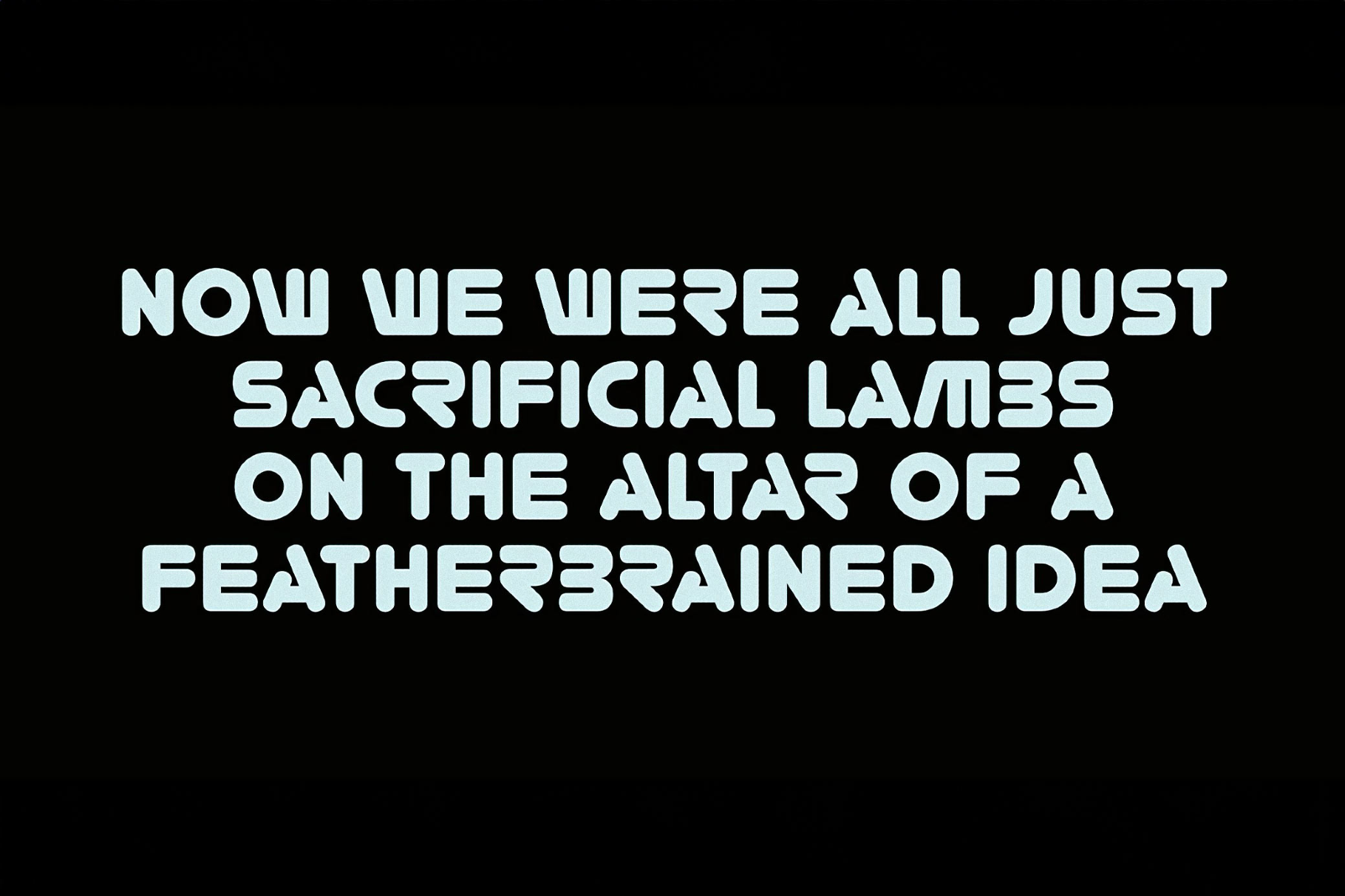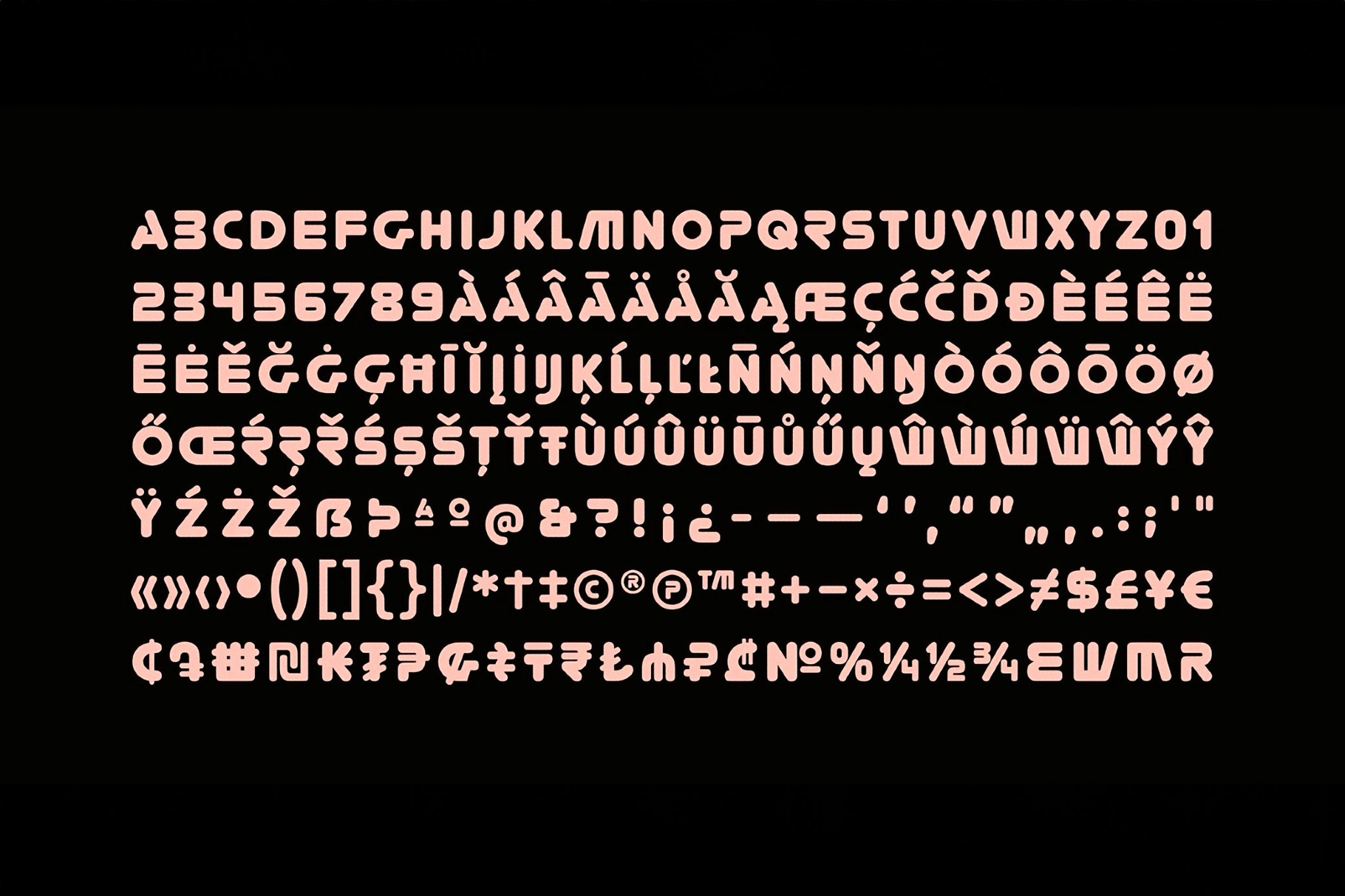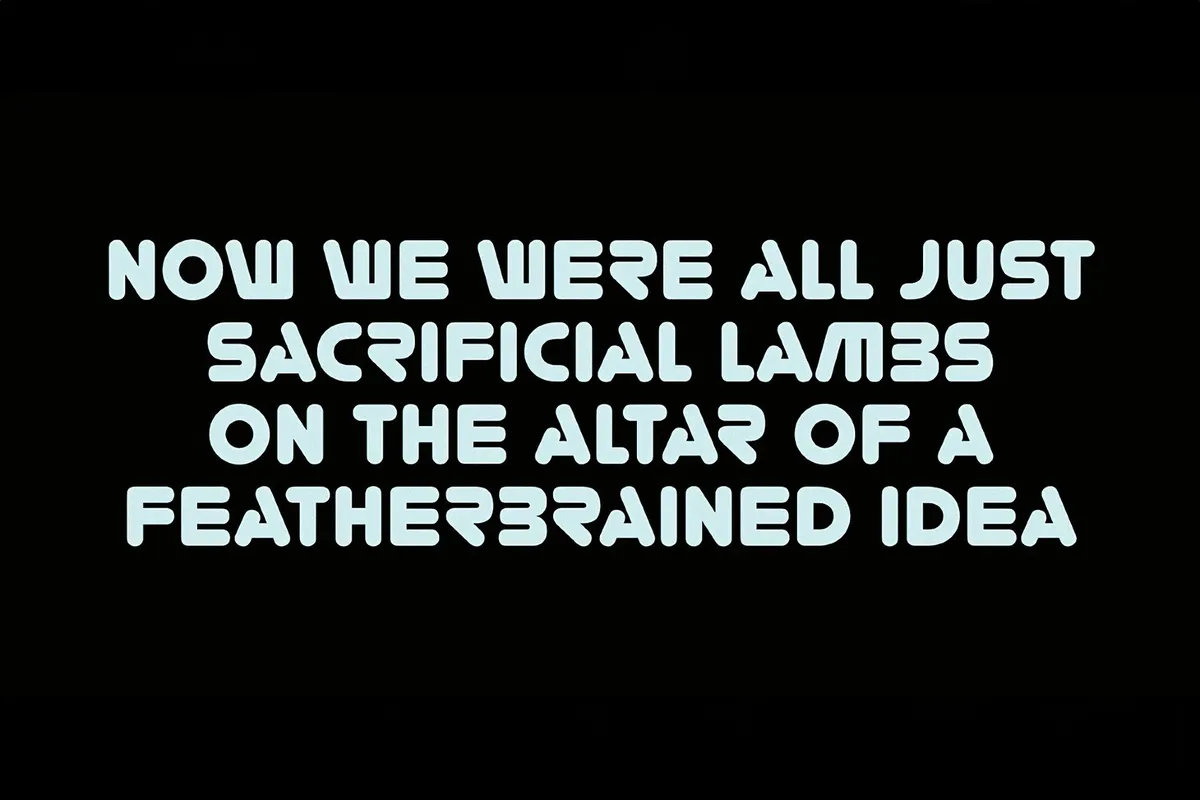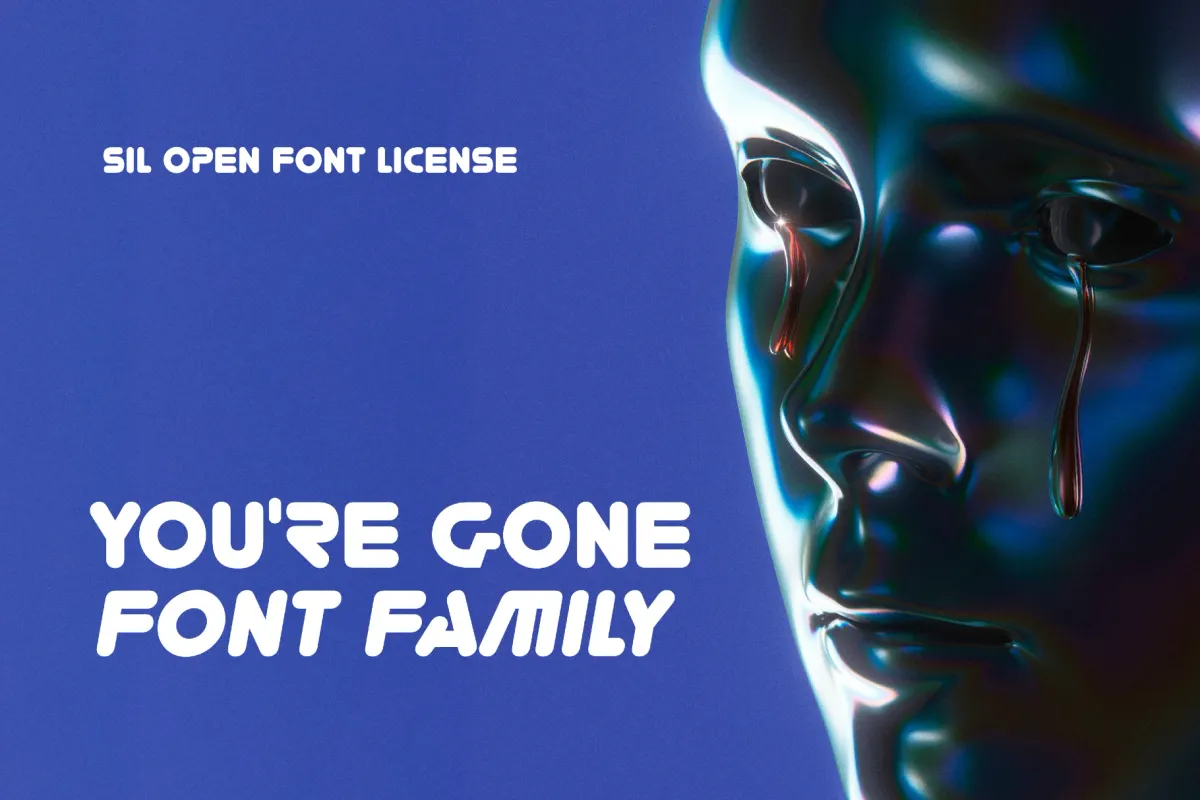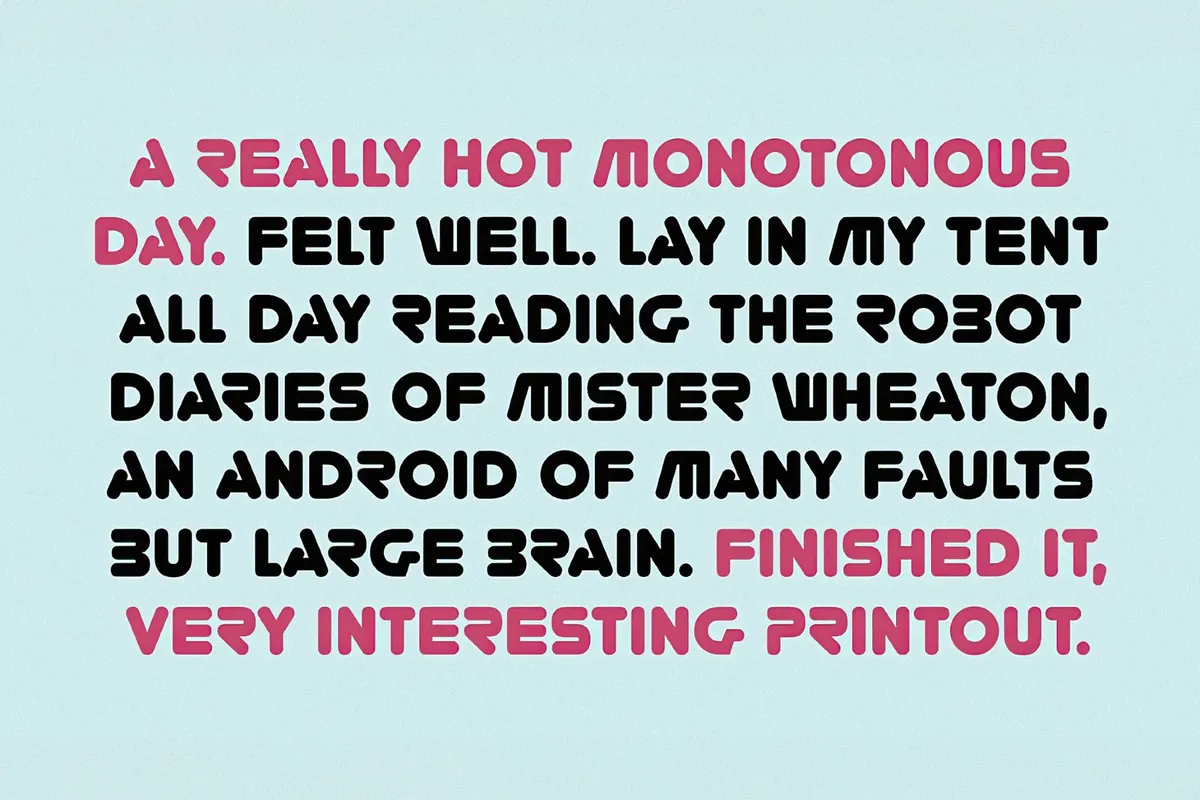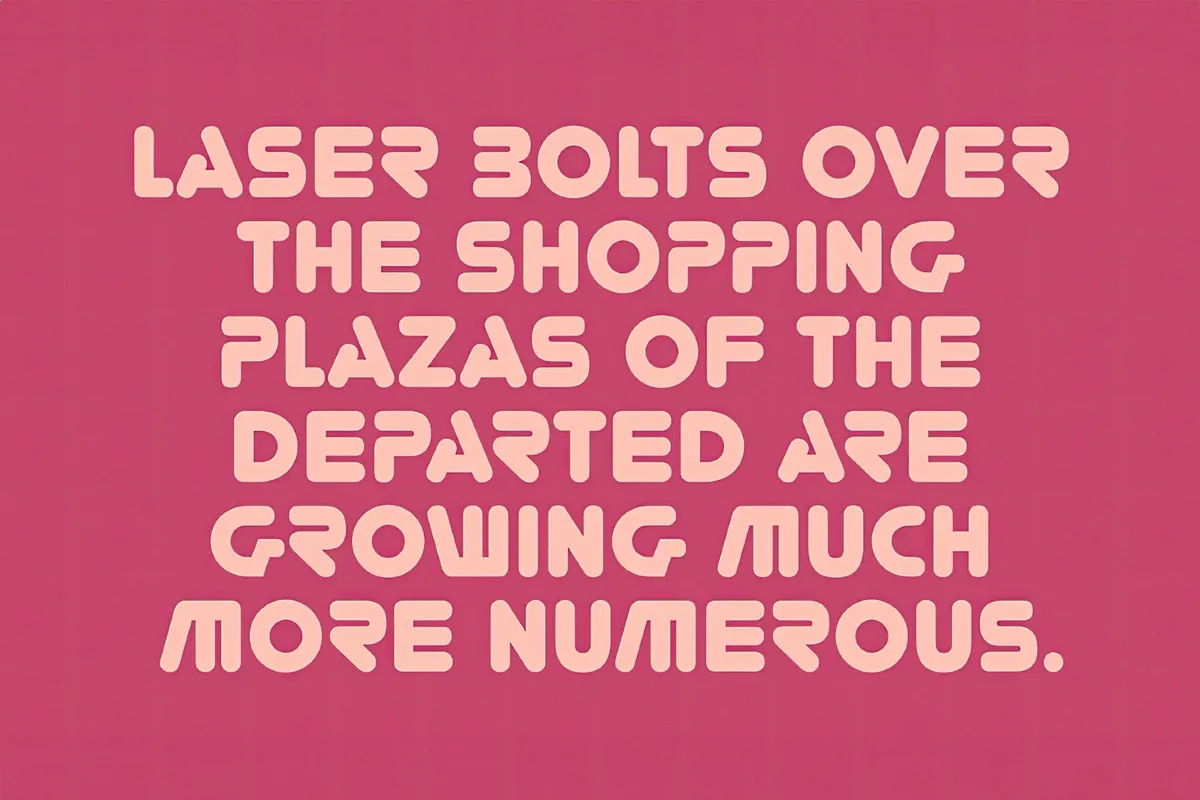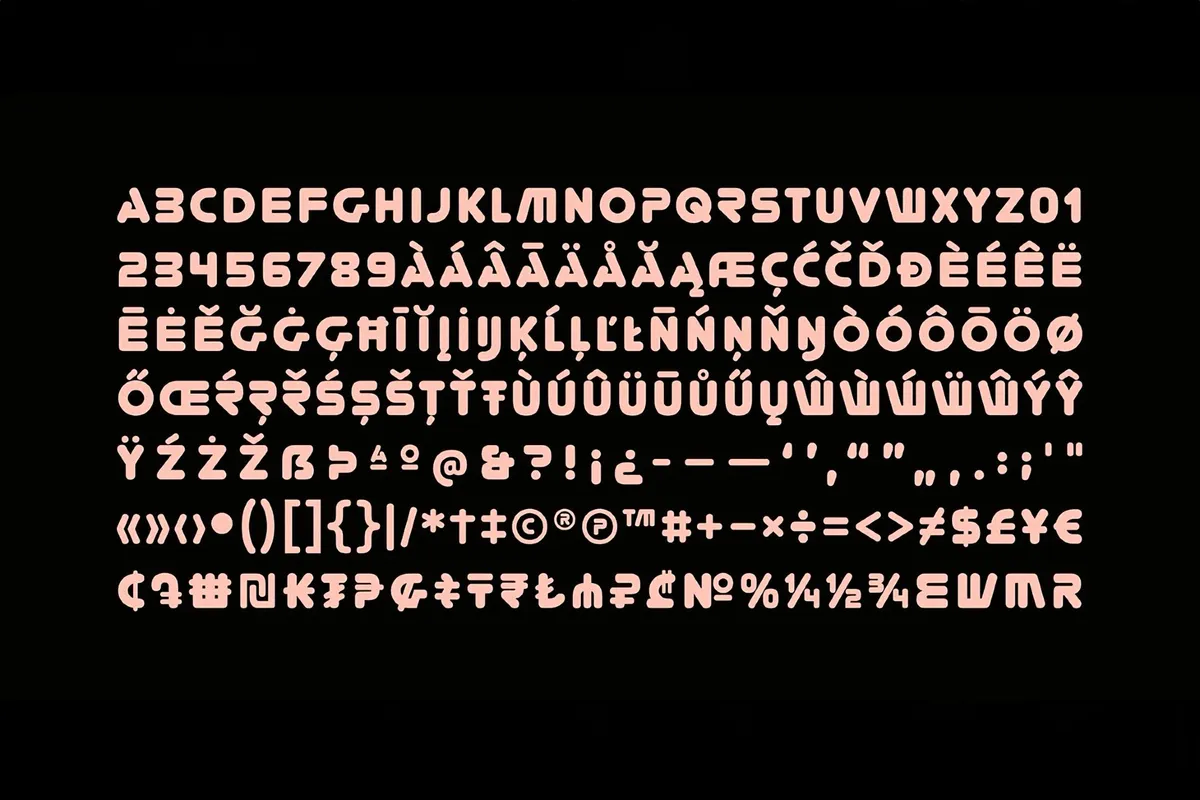
You're Gone Font Family
Youre Gone
You’re Gone is a sleek, retro-futuristic font family with rounded techno forms and spaced-out proportions that evoke ’70s space-age identity work and neon-lit cinema. Wide caps, low contrast, and smoothed corners are ideal for sci-fi titles, album and single artwork, launcher typography, poster headlines, esports or gaming logos, tech-event branding, UI mockups, and motion graphics.
- Two styles: Regular and Italic.
- Only uppercase letters.
- Numbers, punctuation, symbols, and multiple currency signs for codes, scores, prices, and timestamps.
- International characters with multilingual support across extended Latin scripts.
- Basic mathematical symbols.